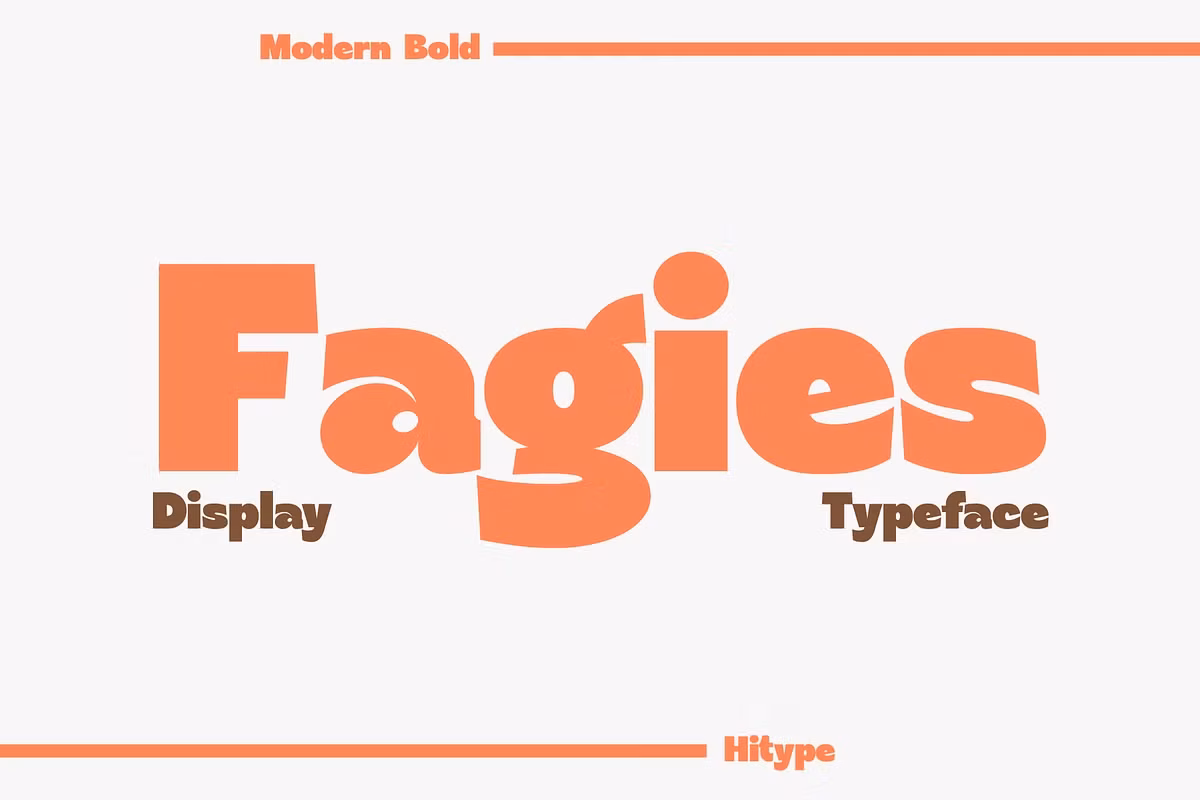
Fagies Display Font Free Download is a bold and modern typeface from Hitype, designed to make a strong impression. With its sleek lines, geometric shapes, and creative letterforms, Fagies is perfect for headlines, branding, editorial layouts, posters, and high-impact digital content.
This display font combines sharp edges with a touch of personality, giving your typography a stylish and contemporary vibe. It includes uppercase characters, numerals, and punctuation—ideal for clean yet expressive compositions in both print and web design.
Whether you're crafting a bold fashion brand, designing magazine covers, or working on modern advertising, Fagies Display Font Free Download offers a fresh, creative edge. Test it out in your personal projects and experience its visual strength. For commercial use, be sure to obtain the proper license. Elevate your design with this standout display font from Hitype.